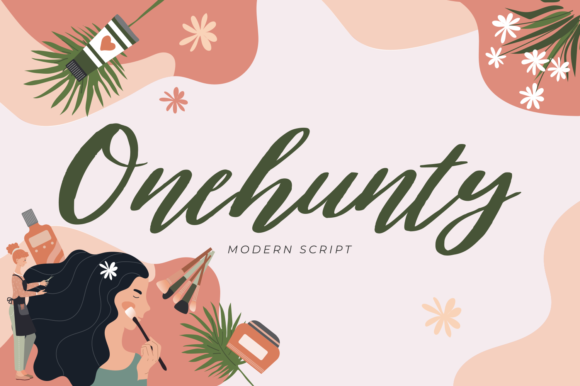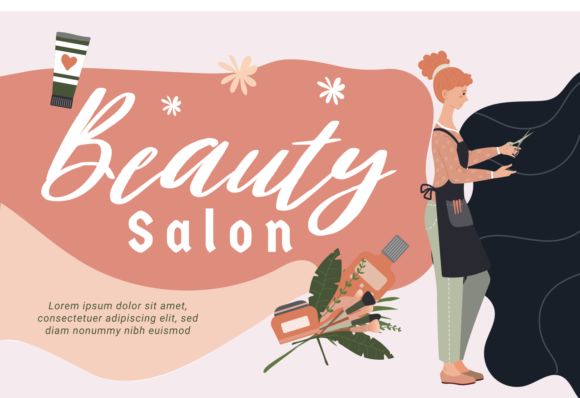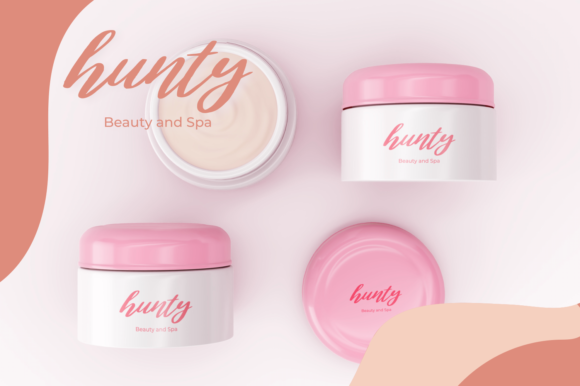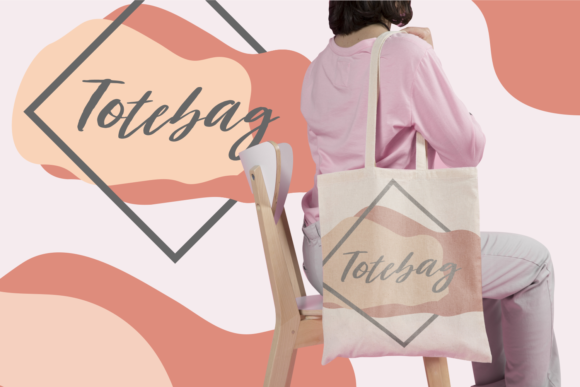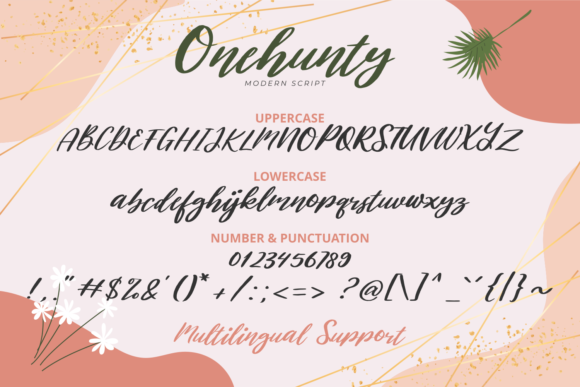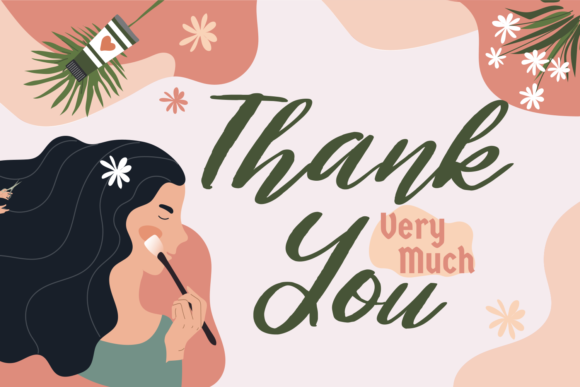
Onehunty Font
About Onehunty Font
Onehunty is an exquisite and elegant handwritten font that exudes grace, beauty, and a touch of sophistication. Here are some reasons why you’ll fall in love with Onehunty and how it can enhance your designs:
1. Elegance and Grace: Onehunty’s flowing and smooth lines give it an air of elegance and sophistication. Its carefully crafted letterforms create a sense of beauty that is perfect for upscale and refined designs.
2. Versatility: Onehunty’s timeless appeal allows it to complement a wide range of design projects. Whether you’re creating wedding invitations, thank you cards, quotes, logos, or business cards, Onehunty will add a touch of refined elegance to your work.
3. Wedding Perfection: With its graceful and delicate nature, Onehunty is particularly well-suited for wedding-related designs. It can bring a sense of romance and charm to wedding invitations, save-the-date cards, and other stationery.
4. Thoughtful Details: Onehunty features gorgeous glyphs and stunning alternates, adding thoughtful touches to your designs. These intricate details can elevate the overall look and feel of your work, making it truly stand out.
5. Professional Branding: Incorporate Onehunty into your branding materials to give your business a polished and sophisticated look. Its elegant design can create a lasting impression and convey a sense of professionalism.
6. Heartfelt Greeting Cards: Onehunty’s graceful and flowing style makes it a perfect choice for creating heartfelt greeting cards and messages. Its elegance can express emotions with sincerity and warmth.
7. Captivating Logos: Utilize Onehunty to create captivating logos that make a lasting impact. Its sophisticated and flowing letterforms can enhance your brand’s image and make it memorable.
8. Authentic Handwritten Feel: Onehunty’s design captures the essence of genuine handwritten calligraphy, giving your designs an authentic and personal touch. It can create a connection with your audience through its human-like quality.
Embrace Onehunty’s elegance, grace, and timeless appeal to elevate your designs with a touch of sophistication. Whether it’s for special events, branding, or personal projects, Onehunty’s refined character will add an element of luxury and charm. Let its smooth lines and stunning alternates transform your designs into works of art that exude elegance and captivate the viewer.